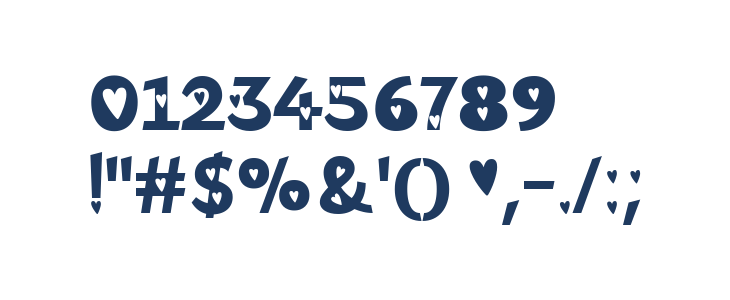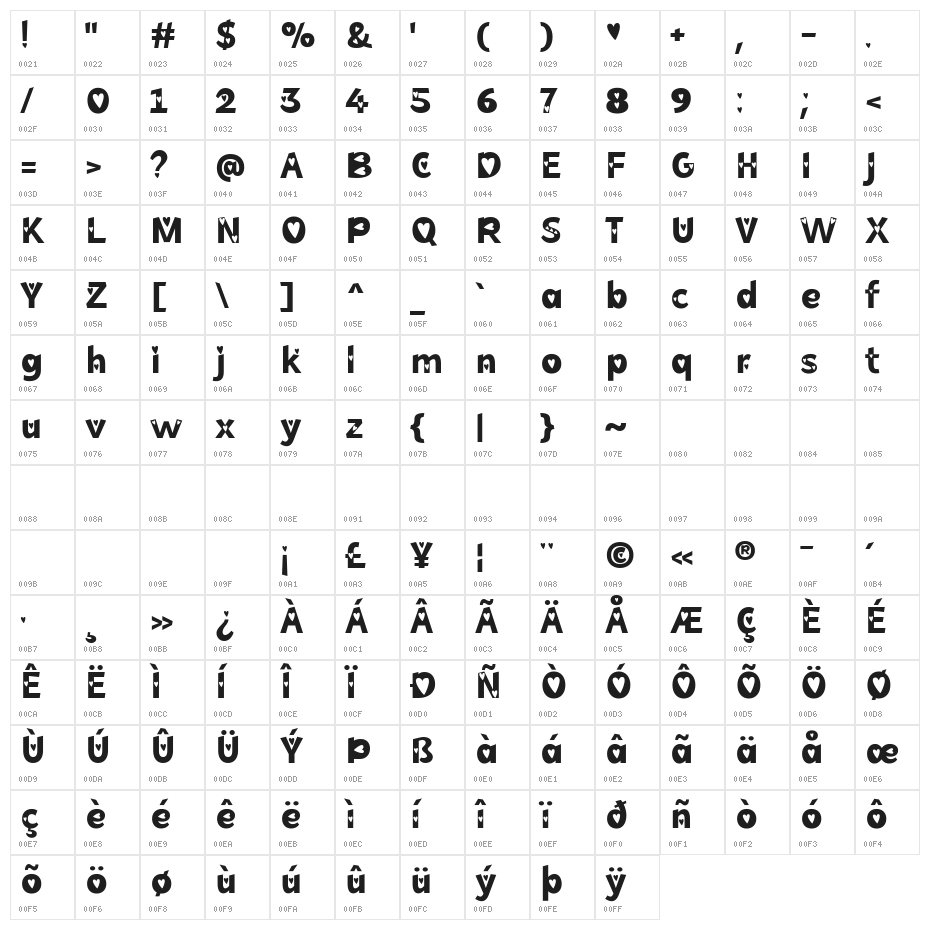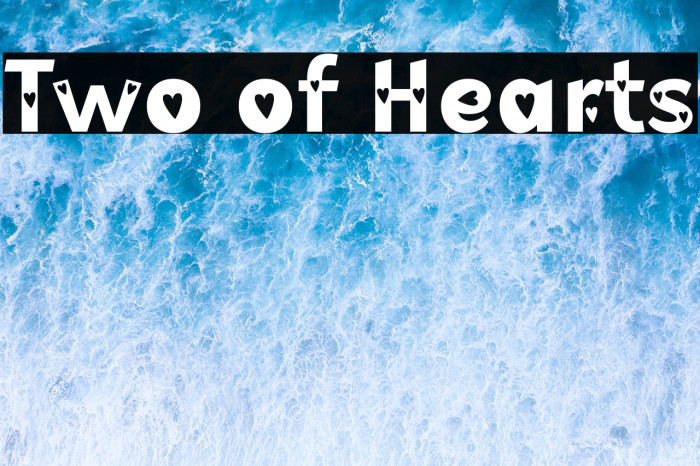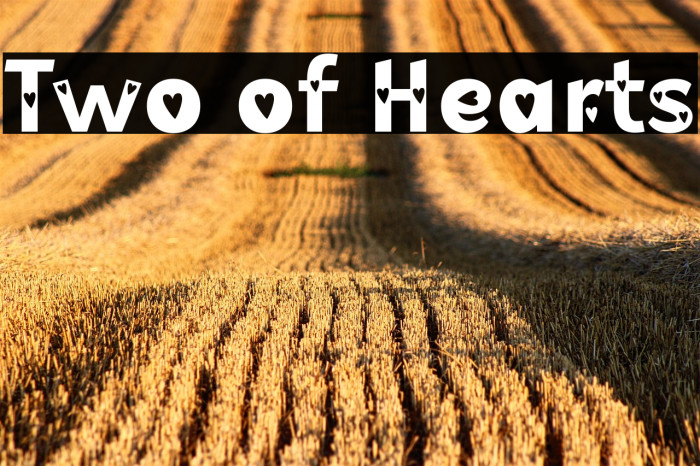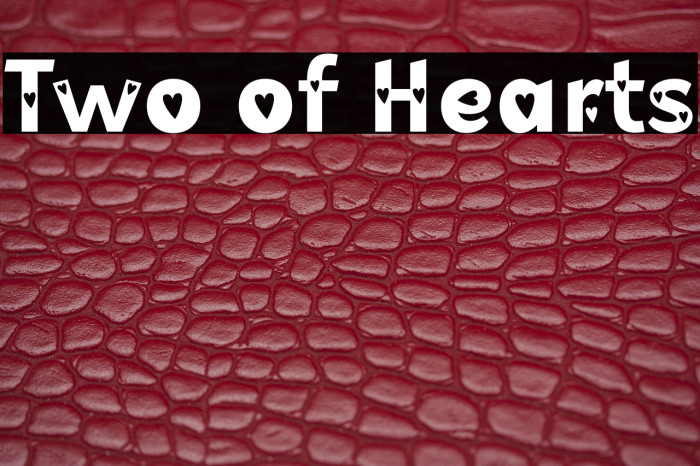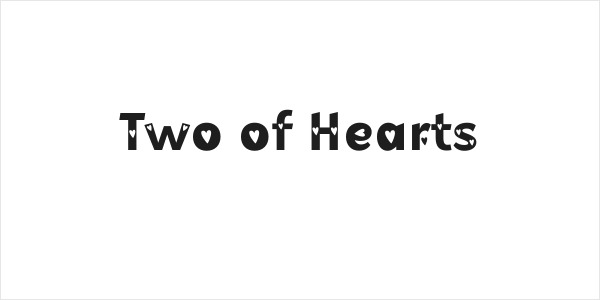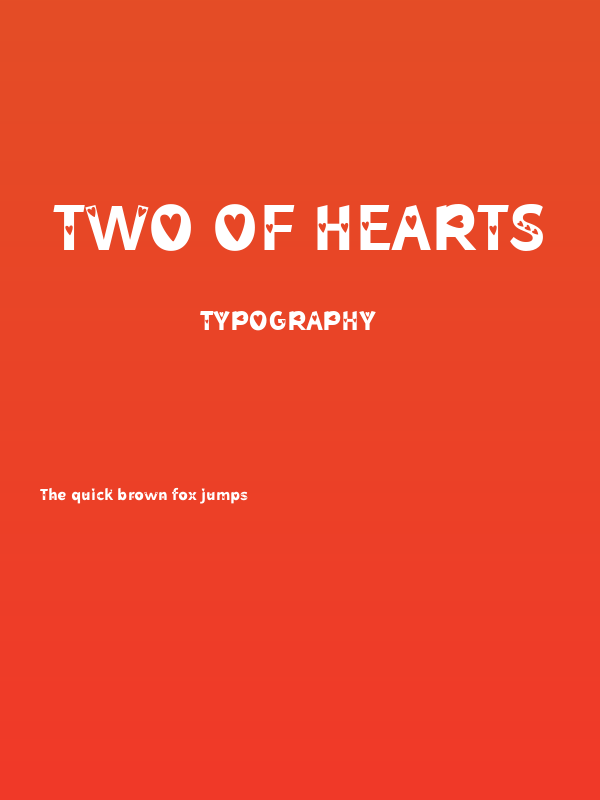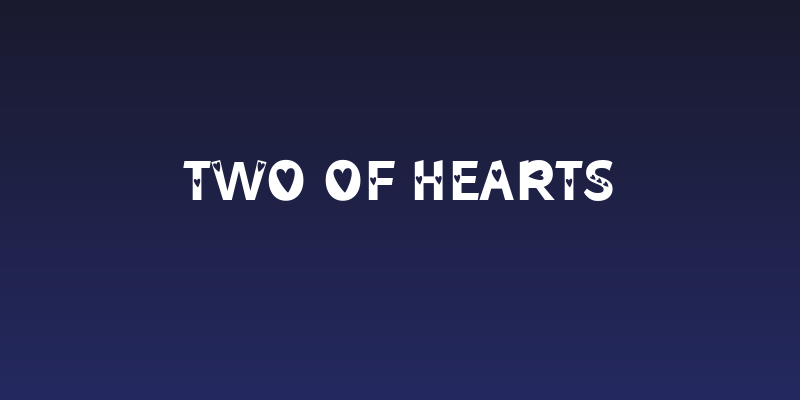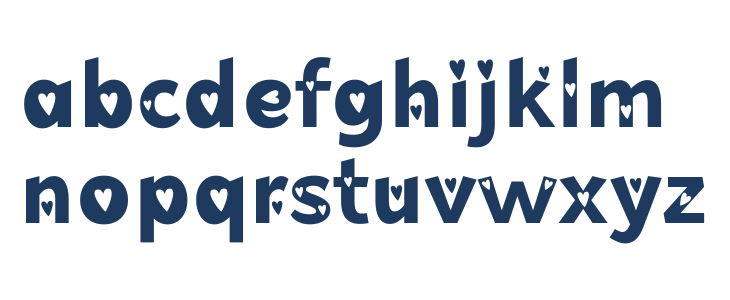
Two of Hearts Font
Two of Hearts Description
This playful and decorative font features bold, rounded characters with unique heart-shaped cutouts in each letter and number. The design adds a whimsical and romantic touch, making it ideal for projects that require a fun and loving aesthetic. The uppercase and lowercase letters maintain a consistent style, with the heart motifs cleverly integrated into the strokes. The numbers and special characters also follow this theme, ensuring a cohesive look throughout. The font's boldness and distinct style make it stand out, perfect for eye-catching designs.
| Proposed Projects | Ideal for Valentine's Day cards, wedding invitations, love-themed posters, and playful branding projects. |